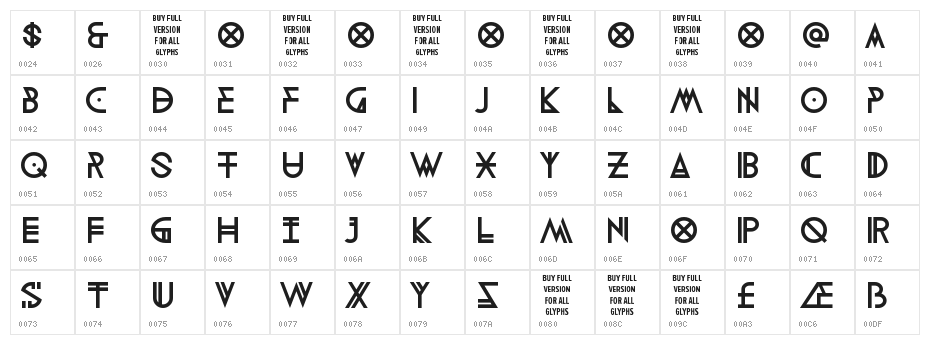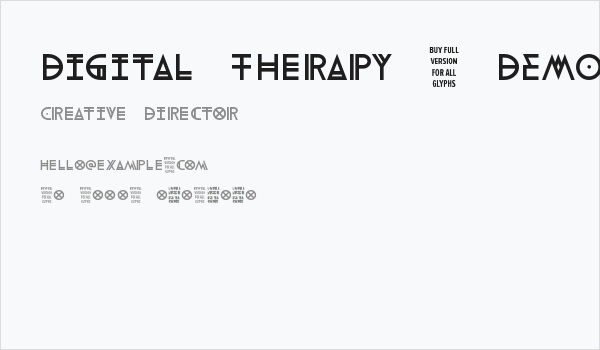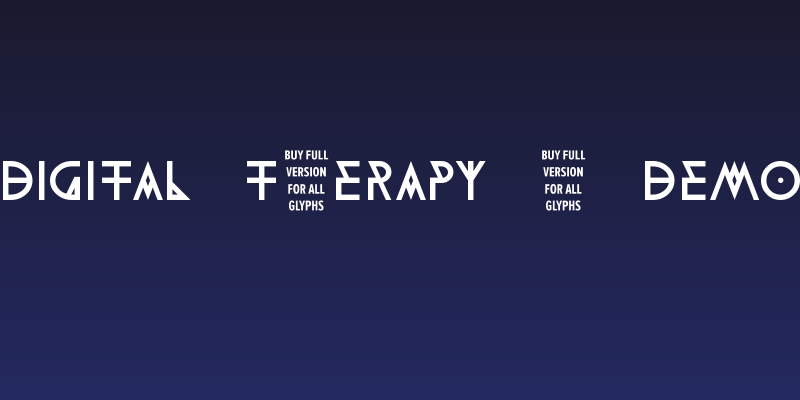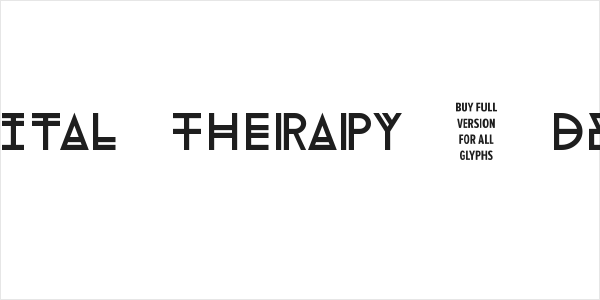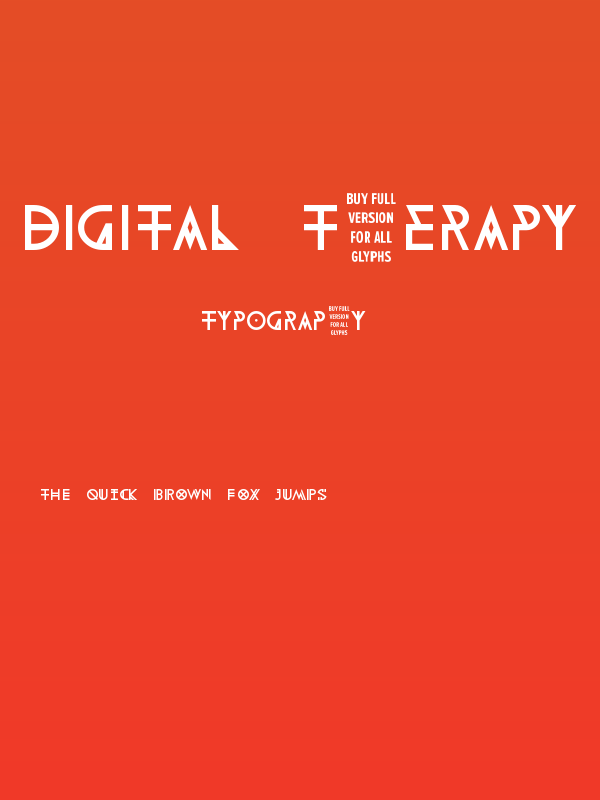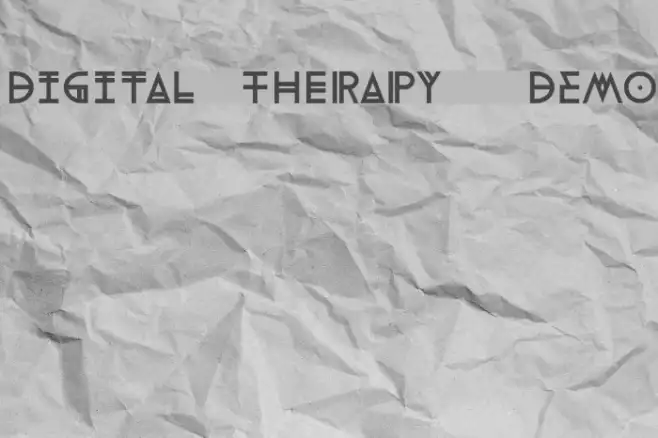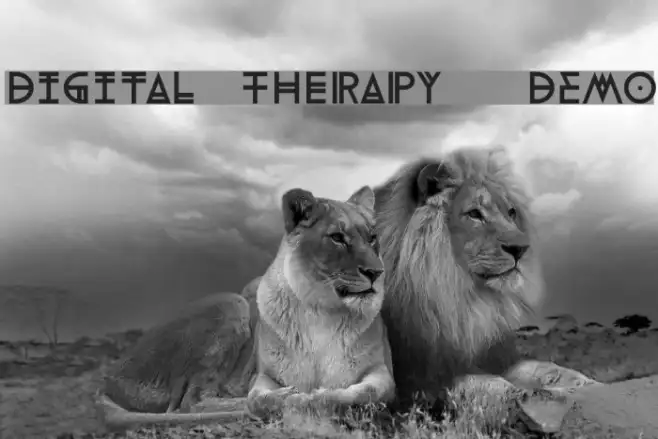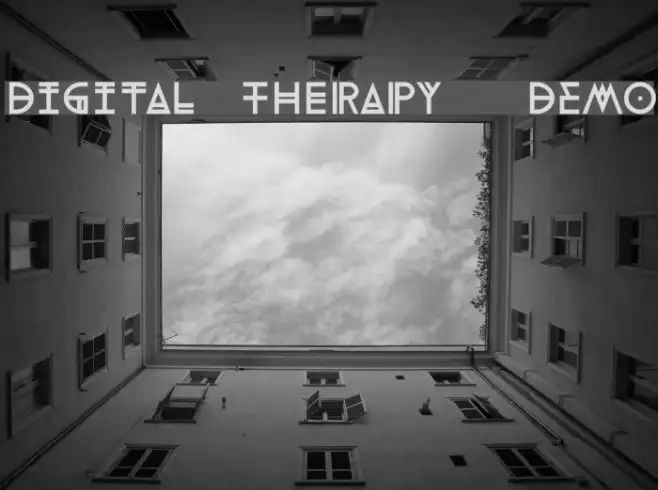
Digital Therapy - DEMO Font
Digital Therapy - DEMO Description
This font features a bold, geometric style with sharp angles and clean lines, creating a futuristic and digital aesthetic. The uppercase letters are distinct with unique cutouts and shapes, giving each character a modern and edgy appearance. The font maintains a consistent weight throughout, emphasizing its boldness. The special characters, such as the dollar sign and ampersand, follow the same geometric design, ensuring uniformity across all glyphs. This font is ideal for projects that require a contemporary and tech-inspired look.
| Proposed Projects | Ideal for tech branding, digital media, video game titles, and modern posters. |